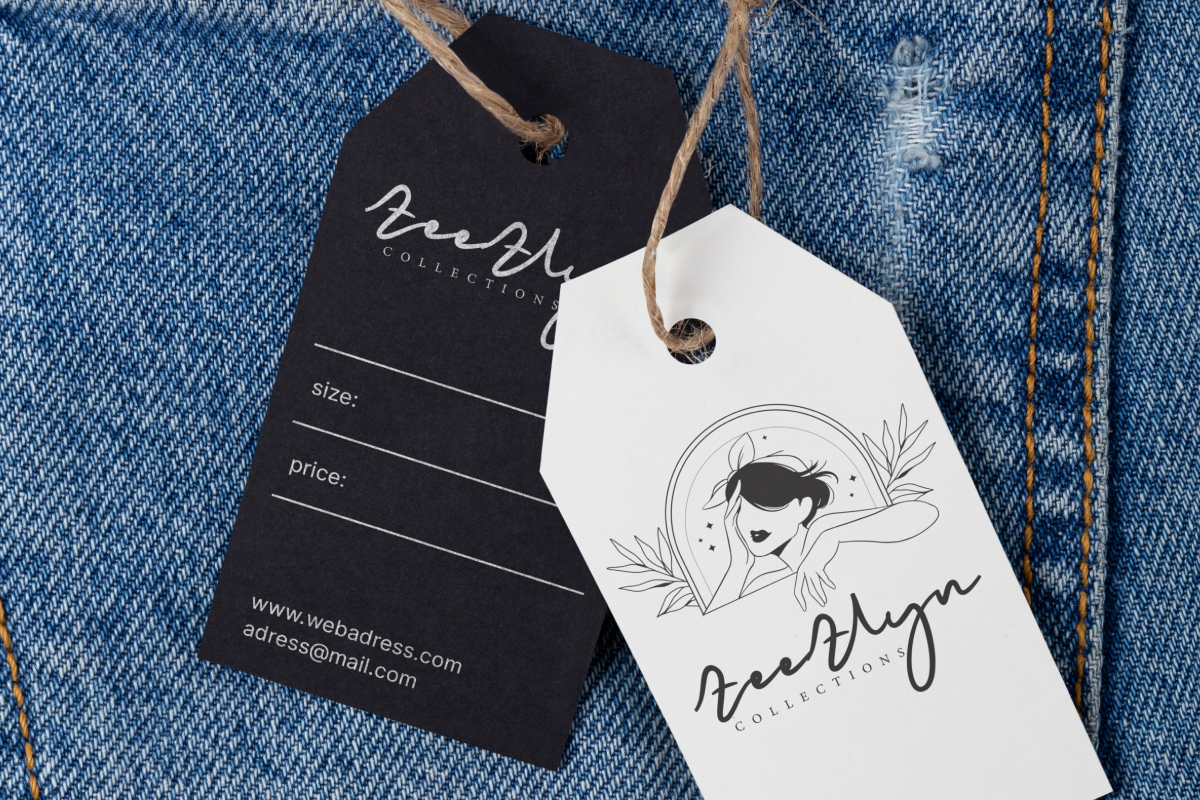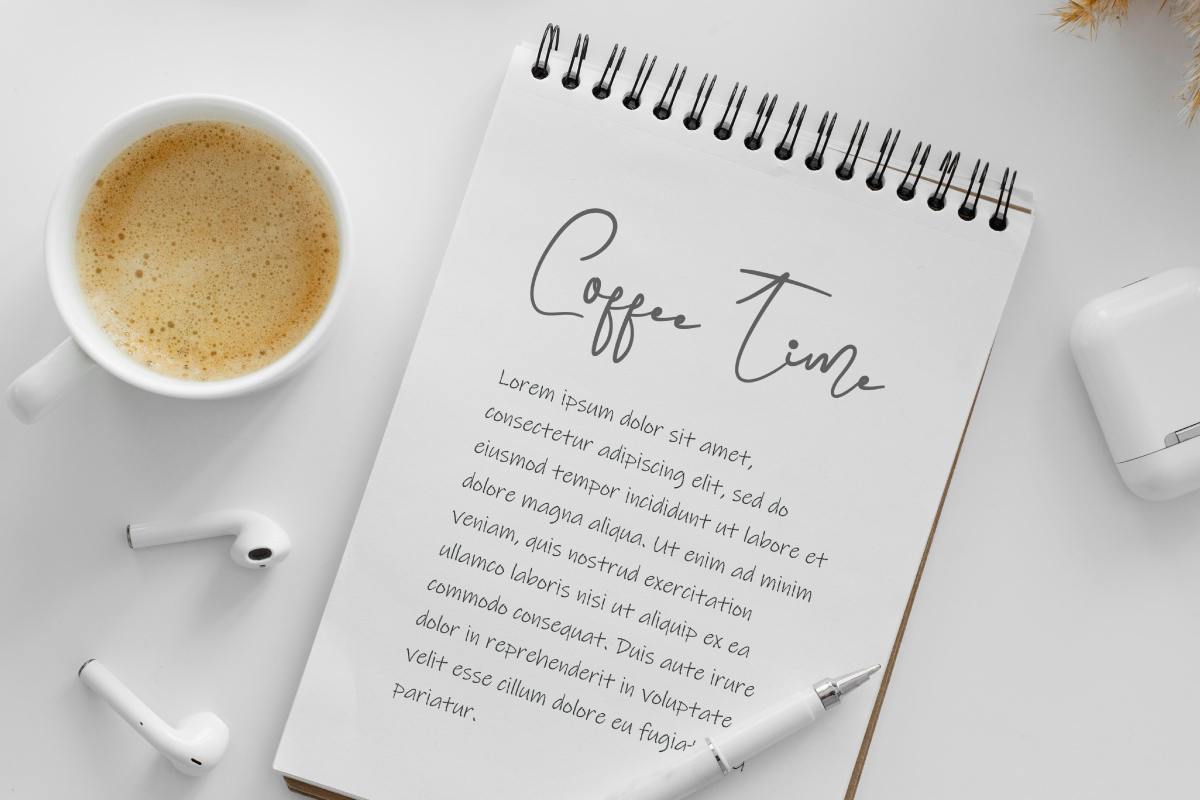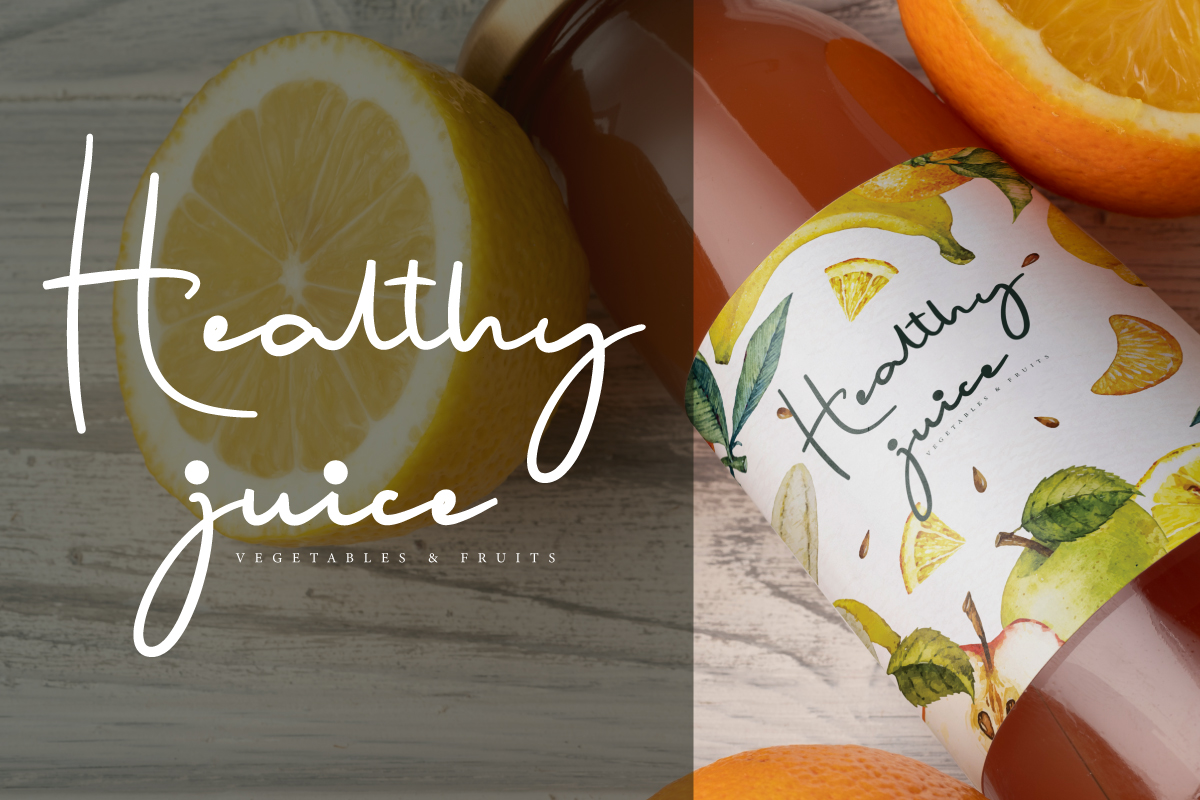
Memorizing Font
Memorizing Script Font is a stylish script font with handwriting style. The style shown in this font has beautiful lines that will remind you of writing in a diary! Use this font to enhance your projects, such as book notes, business card, invitation, label, packaging design, quotes, screen printing, signage, stationery, title, website, etc.